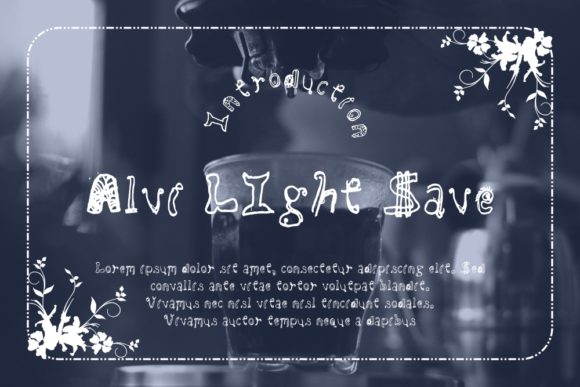
The Ultimate Guide to Alvi Light Save Font: Adding a Funny Touch to Your Designs
Have you ever been in the middle of a design project, and suddenly, you just can’t seem to find the right font? I recall a particularly frustrating experience when I was working on a fun, illustrative poster for a client’s quirky event. The design was almost complete, but something was missing – a font that could match the playful vibe I was going for. That’s when I stumbled upon the Alvi Light Save font, and let me tell you, it was love at first sight! 😊
An Honest Review of Alvi Light Save
So, what makes Alvi Light Save so special? Here are some things I love about this quirky and fun display font:
- ✨ Unique and playful design that’s perfect for adding a funny touch to your designs
- ✅ Highly legible, even at smaller sizes
- 💥 Great for headlines, titles, and short paragraphs of text
- 🎉 Available in OpenType format, which means you get access to a range of glyphs and stylistic alternates
Of course, no font is perfect, and Alvi Light Save has a few small quirks:
- 🤔 May not be the best choice for body text or longer paragraphs, as it can be a bit too playful
- ⚠️ Some characters may not work well in all contexts, so be sure to test it thoroughly
While I couldn’t find any information on the actual designer of Alvi Light Save, I like to imagine that it was created by a team of designers who wanted to craft a font that would bring a smile to people’s faces. Perhaps they were inspired by the quirky world of comic books, cartoons, or children’s illustrations. Whatever the inspiration, Alvi Light Save is a true gem in the world of display fonts.
| Q: What is Alvi Light Save font? | A: Alvi Light Save is a quirky and fun display font designed to add a funny touch to your designs. |
| Q: Is Alvi Light Save suitable for body text? | A: While it’s legible, Alvi Light Save might not be the best choice for body text or longer paragraphs, as it can be a bit too playful. |
| Q: Does Alvi Light Save support OpenType features? | A: Yes, Alvi Light Save comes in OpenType format, which means you get access to a range of glyphs and stylistic alternates. |